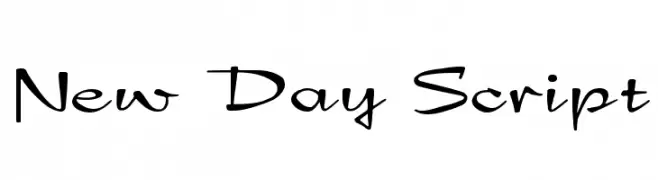
A whimsical, cartoon-like font with unique illustrative characters.
( Fonts by Rick Mueller )
A lively, handwritten-style font with energetic strokes and modern appeal.
( Fonts by Graham Meade - GemFonts )
A lively, handwritten script font with a dynamic and fluid style.
A whimsical, animated font with characters featuring legs and playful designs.
A playful, child-like handwritten font with uneven, lively characters.
A playful, hand-drawn font with irregular strokes and a lively appearance.